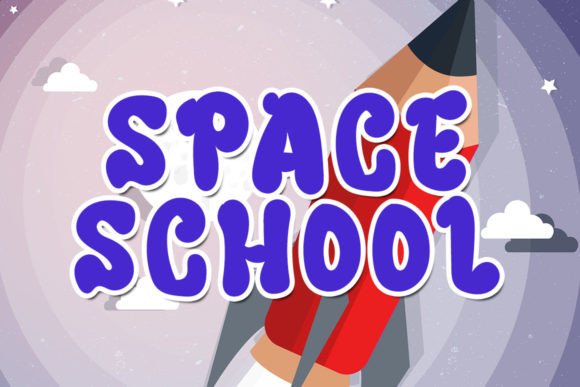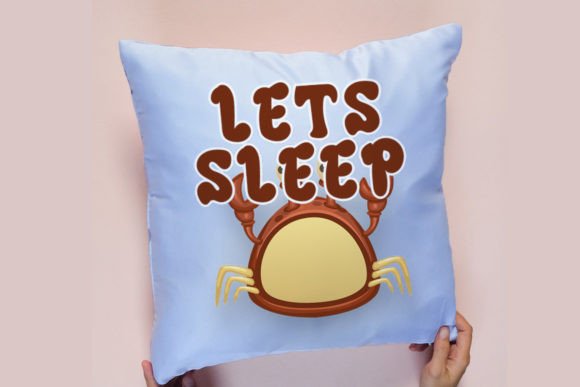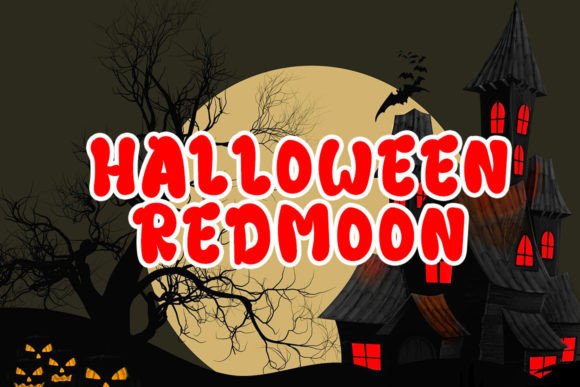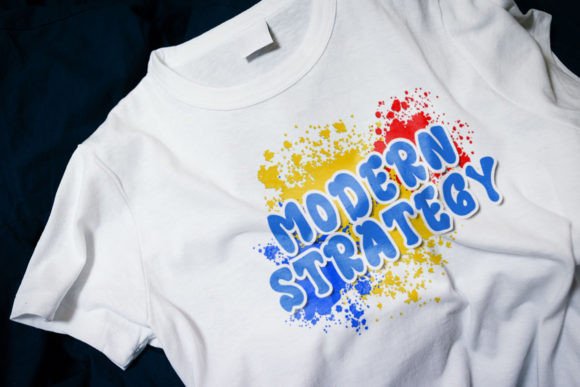
Introducing Beside Blinds Font: The Fresh and Cool Display Typeface
Are you tired of using the same old fonts in your designs? Look no further! Beside Blinds Font is here to shake things up with its fresh and cool display style. This typeface is perfect for designers and crafters looking to add a joyful touch to their projects, whether formal or informal.
What Makes Beside Blinds Font Special?
Beside Blinds Font stands out from the crowd with its unique and playful design. Its fresh and cool style makes it perfect for a wide range of projects, from creative crafts to professional designs. The font’s versatility allows it to be used in various contexts, making it a valuable addition to any designer’s toolkit.
Key Features of Beside Blinds Font
• Fresh and Cool Design: Beside Blinds Font boasts a modern and trendy design that’s sure to grab attention.
• Display Typeface: This font is specifically designed for display purposes, making it perfect for headlines, titles, and other prominent text elements.
• Versatile: Beside Blinds Font can be used in a variety of projects, from formal to informal, and from digital to print.
• Easy to Read: Despite its unique design, Beside Blinds Font remains easy to read, making it a great choice for designs that require both style and substance.
Use Cases for Beside Blinds Font
Beside Blinds Font is suitable for a wide range of projects, including:
• Graphic Design: Use Beside Blinds Font to create eye-catching posters, flyers, and brochures.
• Digital Design: Add a touch of personality to your website, social media graphics, or email newsletters.
• Crafting: Use Beside Blinds Font to create unique and personalized crafts, such as handmade cards or DIY decorations.
• Branding: Establish a strong brand identity with Beside Blinds Font, perfect for logos, business cards, or letterheads.
Tips for Using Beside Blinds Font
To get the most out of Beside Blinds Font, follow these tips:
• Use it as a Display Font: Beside Blinds Font is designed for display purposes, so use it to grab attention and make a statement.
• Pair it with a Simple Font: Balance out the playfulness of Beside Blinds Font by pairing it with a simple, easy-to-read font.
• Experiment with Colors: Take advantage of Beside Blinds Font’s versatility by experimenting with different colors and textures.
Font Name Beside Blinds Font
In conclusion, Beside Blinds Font is a fresh and cool display typeface that’s perfect for designers and crafters looking to add a joyful touch to their projects. With its unique design, versatility, and ease of use, Beside Blinds Font is sure to become a valuable addition to your design toolkit. So why not give it a try and see how it can elevate your designs?